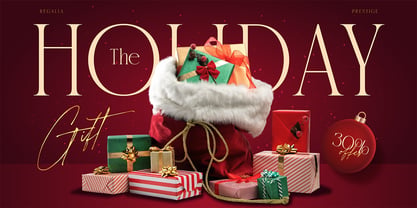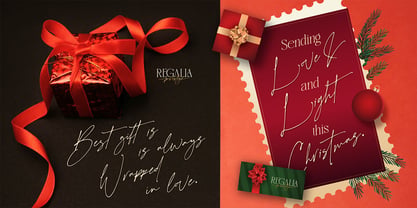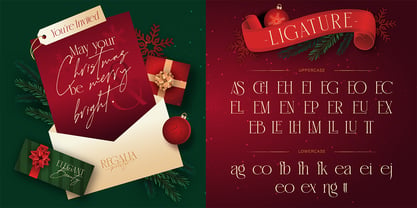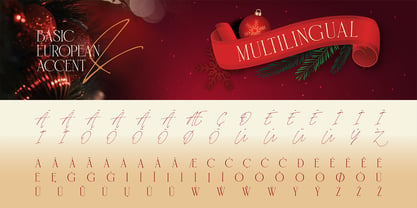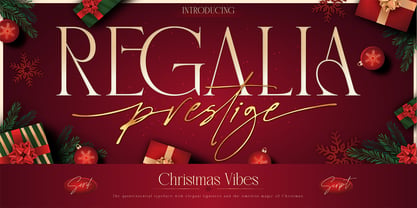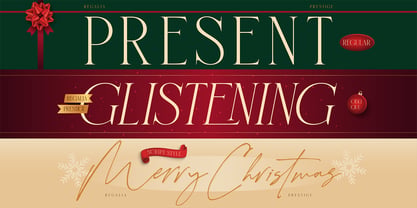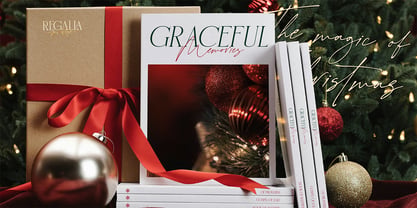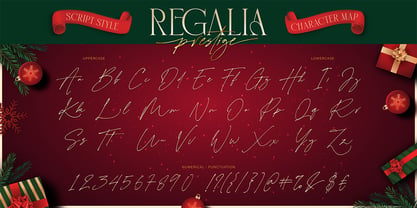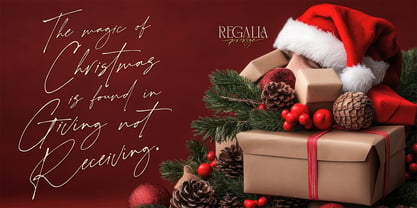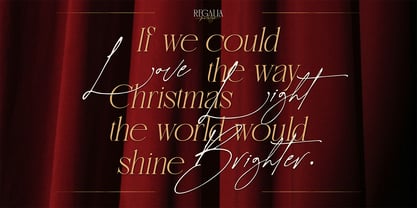
Regalia Prestige
The Regalia Prestige Font Family was designed by Eric Kurniawan and published by Burntilldead. Regalia Prestige contains 3 styles and family package options. More about this family
Experience the enchanting beauty of Regalia Prestige — a luxurious typeface duo that captures the elegance and warmth of Christmas. Designed with sophisticated serif forms and a graceful handwritten script, this font brings a refined festive touch to every design. The serif style embodies timeless beauty, perfect for magazine covers, invitations, and classy branding. Meanwhile, the flowing script adds a personal and heartfelt charm — like a handwritten note wrapped with love. Together, they create a harmonious balance between tradition and modern allure. Whether you’re crafting Christmas cards, seasonal packaging, or festive editorials, Regalia Prestige shines with its golden glow and polished details — a celebration of love, light, and the magic of the holidays. Features: A - Z set (Uppercase & Lowercase), Number, Alternates, Ligatures, Punctuation, Multilingual